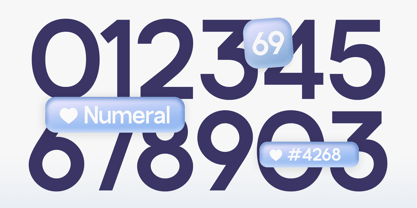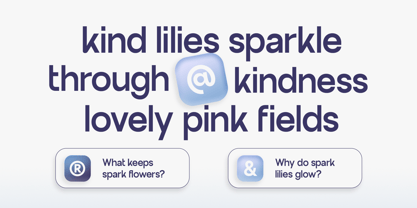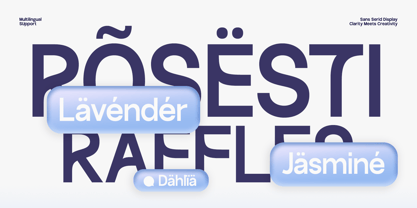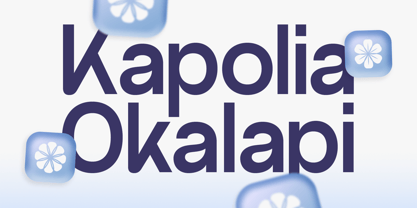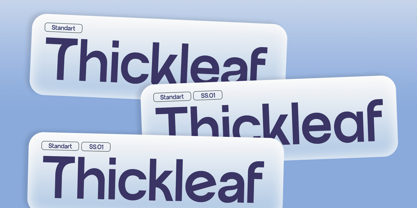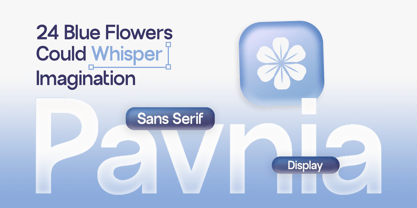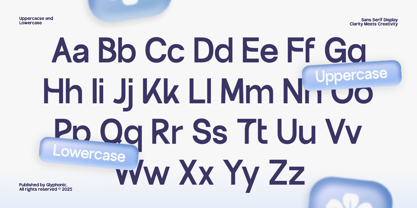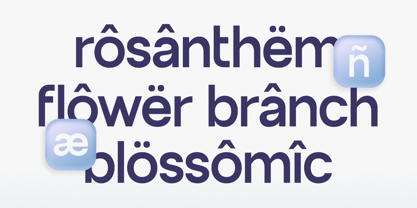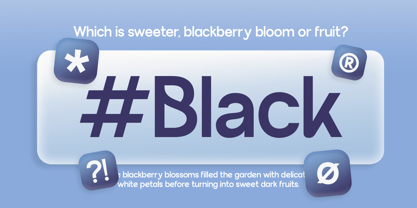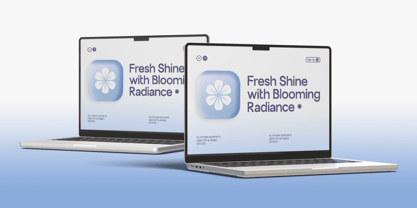
GC Palioka
by Onyx Studio
The GC Palioka Font Family was designed by Muhammad Hafiizh Solana and published by Onyx Studio. GC Palioka contains 2 styles and family package options. More about this family
GC Palioka is a stylish sans serif typeface that brings a fresh balance of modern simplicity and refined character. Designed with clean geometry and subtle softness, it captures a contemporary aesthetic while remaining versatile and approachable. Perfect for branding, editorial layouts, digital interfaces, and creative displays, this font adds clarity and sophistication to any project. With its extended forms, smooth curves, and confident presence, GC Palioka delivers a sans serif that feels both professional and expressive. Whether you’re crafting bold headlines, sleek packaging, or minimalistic visuals, this typeface ensures your design stands out with modern elegance. Features: Uppercase & Lowercase Ligatures & Stylistic Alternates Numbers & Punctuation Multilingual Support (170+ Languages) Make your design fresh, modern, and stylish with GC Palioka.